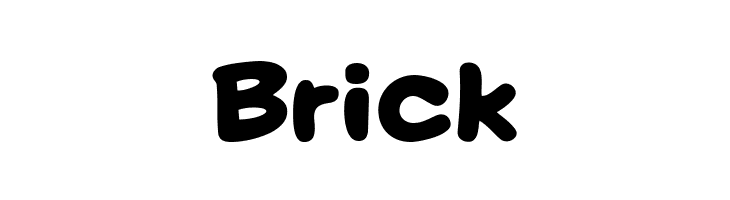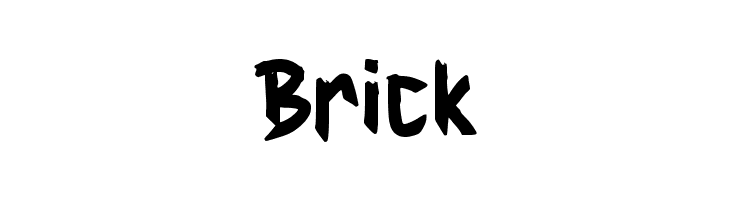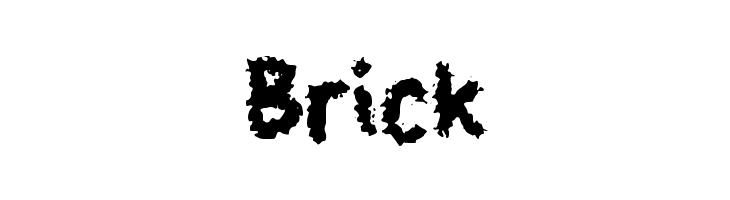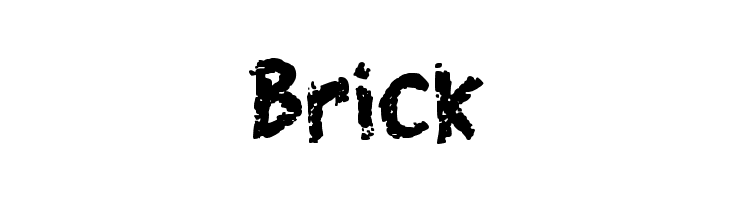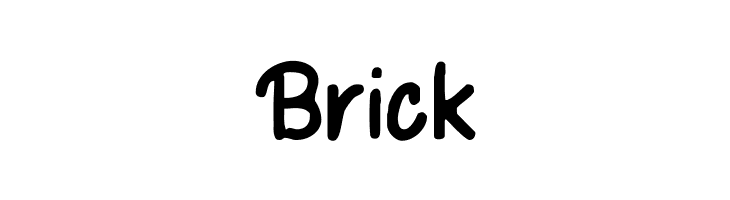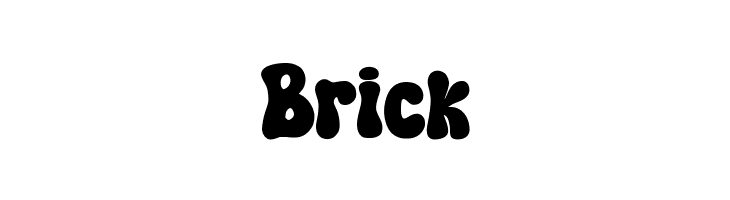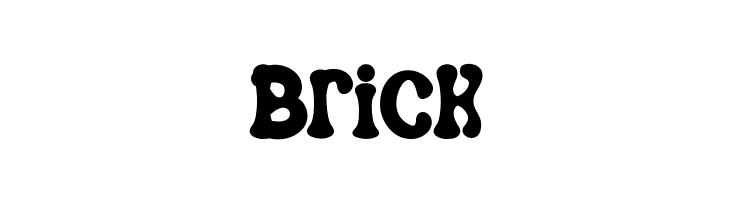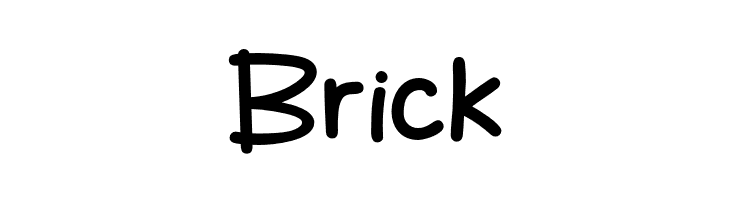
A playful, bold font with thick, rounded strokes and a whimsical design.
A playful, bubbly font with a hand-drawn, whimsical style.
A bold, decorative font with blocky, high-contrast letters ideal for headlines.
A bold, rounded, and playful hand-drawn font with a whimsical feel.
A bold, brush-style font with a dynamic and expressive hand-drawn look.
A playful, bold font with rounded, thick strokes and a whimsical style.
A playful, hand-drawn font with rounded, informal characters.
A bold, playful font with rounded, bubbly characters.
A bold, textured font with a rugged, distressed appearance.
A rugged, distressed font with a bold, stone-like texture.